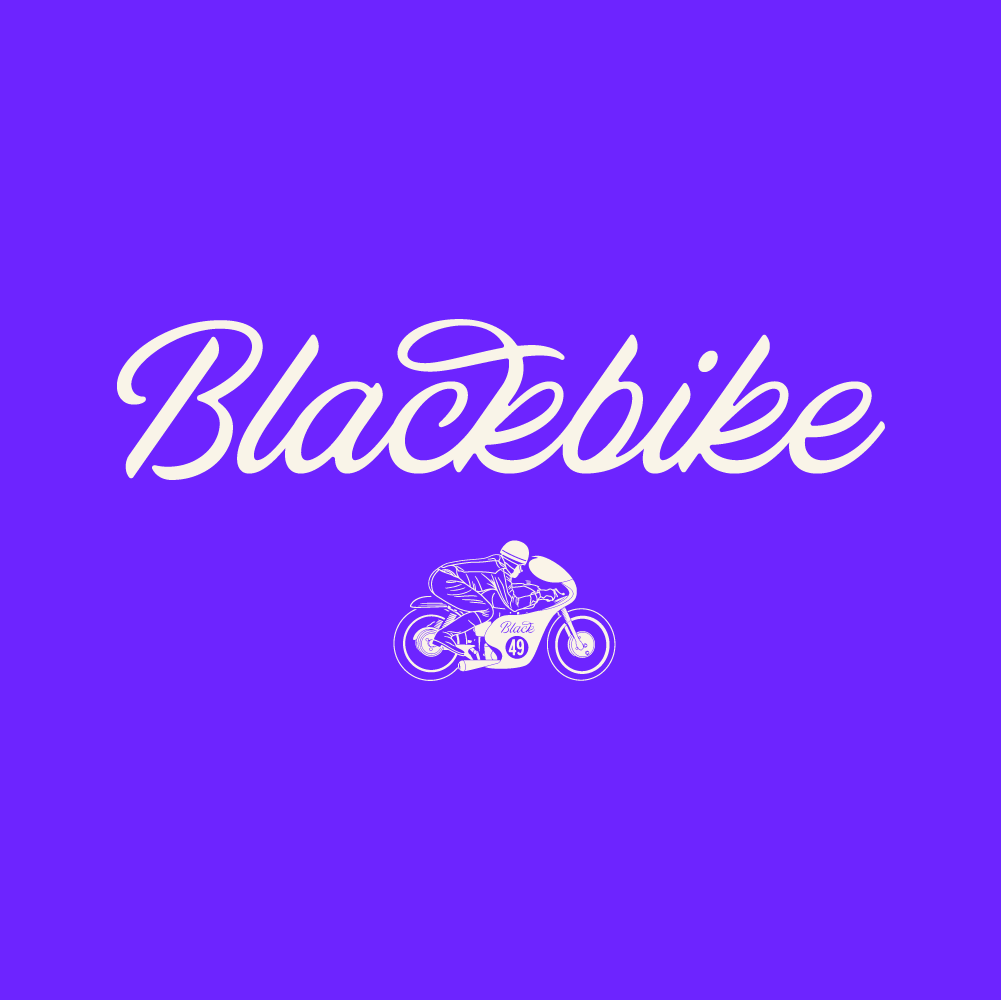
Blackbike
Blackbike is a new versatile display script with a unique and dynamic cadence. It has 279 glyphs, including 32 alternate characters and ligatures. Purchase comes in both Clean and Rough styles.
Designed by Simon Walker.